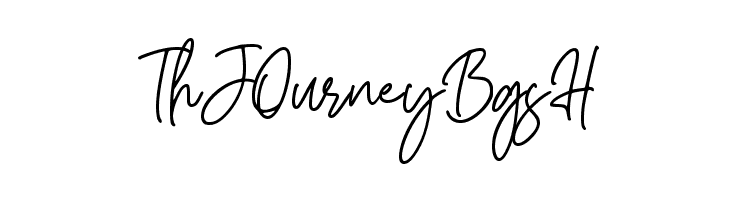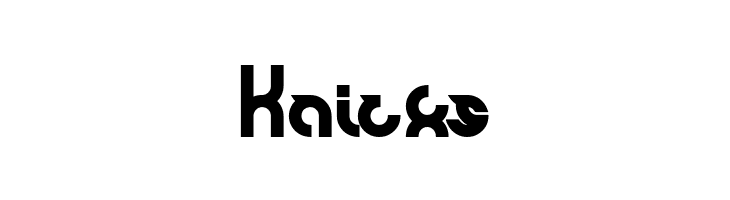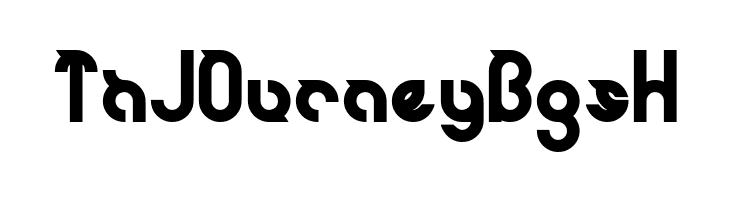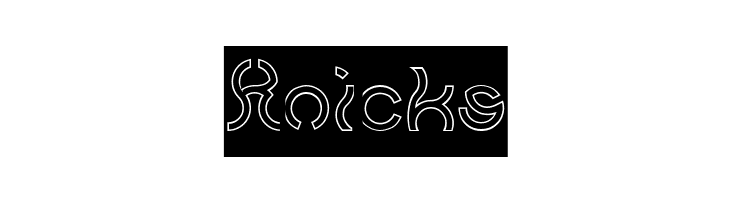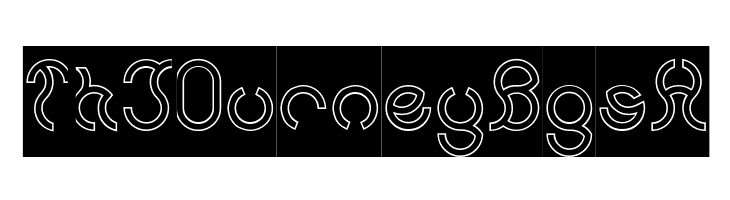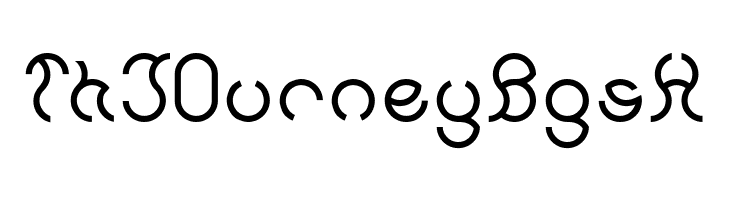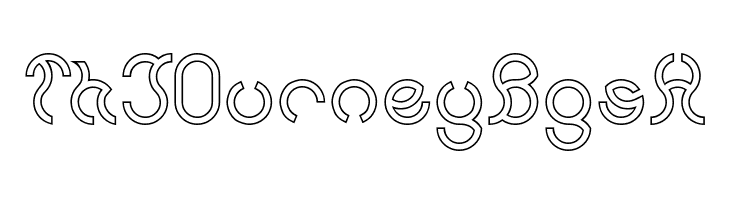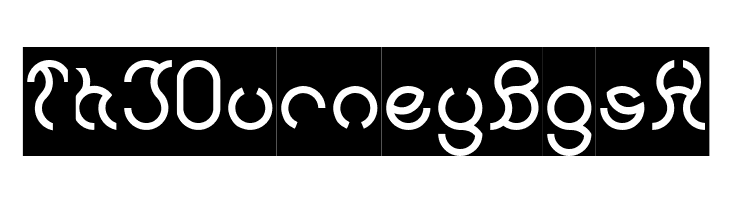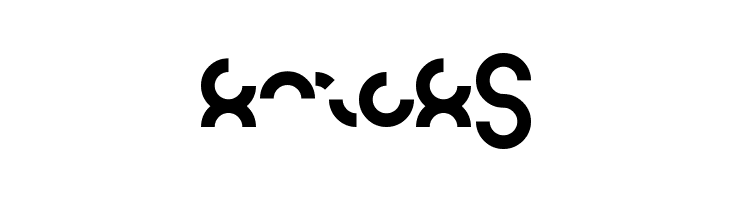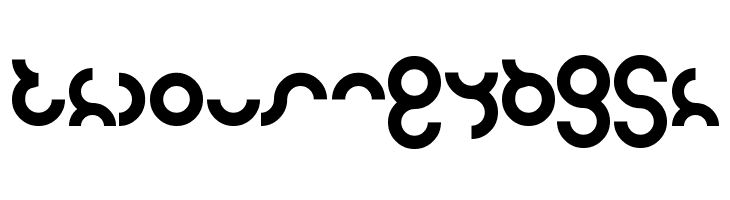
• Nine-Hollow
A decorative hollow font with intricate curves and open spaces, perfect for creative projects.
• Nine-Hollow-Inverse
A modern, hollow, and artistic font with fluid curves and bold outlines.
• Nine-Inverse
A bold, artistic font with intricate curves and a modern flair.
• Nine-Light
A whimsical and artistic font with playful curves and loops.
• Ninja Note
( Darrell Flood )
A bold, dynamic handwritten script font with fluid, connected characters.
• NiseBuschGardens 2
A dynamic and fluid script font with smooth curves and medium contrast.
• Noah Letter
A charming, elegant handwritten font with fluid, cursive strokes.
• noakatz
A bold, abstract font with circular motifs and artistic design.
• noakatz
A bold, decorative font with geometric shapes and unique cut-out patterns.
• noakatz Bold
A bold, modern font with geometric and dynamic styling.